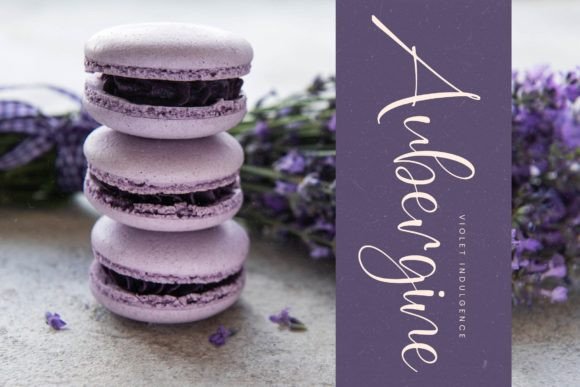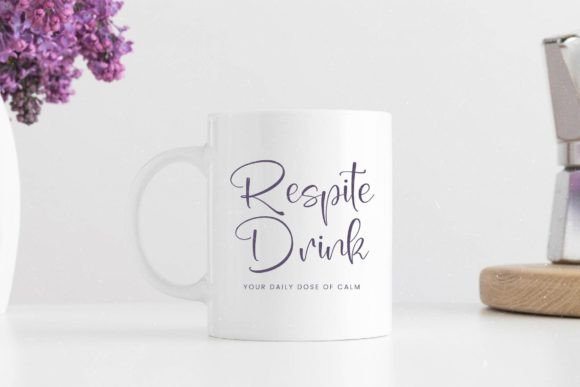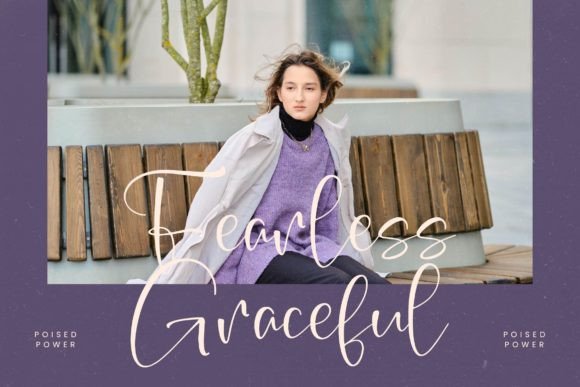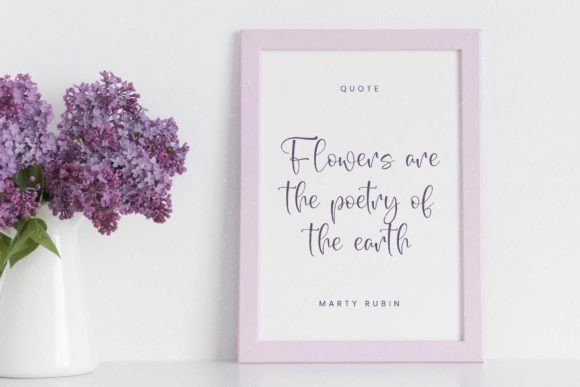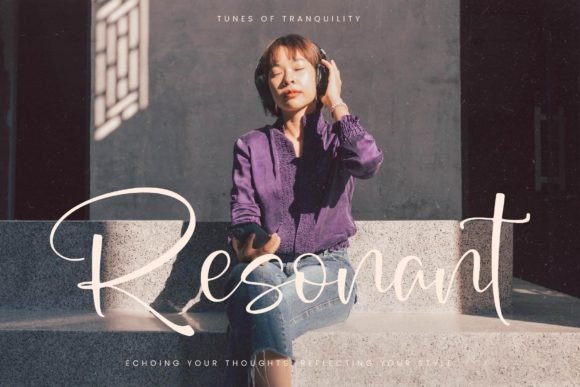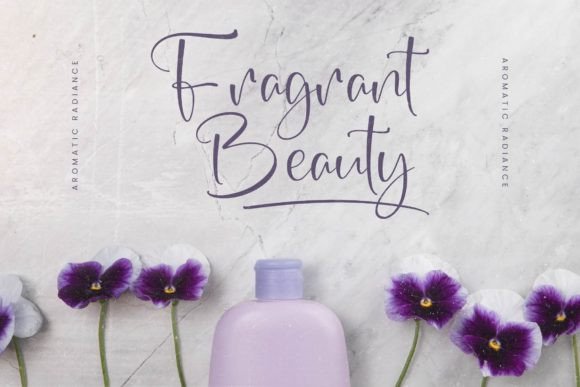
Introduction to Roseteria Culture Font
Roseteria Culture is a modern and charming handwritten font that exudes elegance and personality.
Its graceful, flowing strokes and sophisticated character make it perfect for upscale invitations, personal branding, and chic editorial designs Elevate your projects with the refined allure and warmth of this font.
Key Features of Roseteria Culture Font
Why Choose Roseteria Culture Font?
Roseteria Culture Font offers exceptional quality and versatility, making it a valuable addition to your design toolkit. Whether you’re creating for personal projects or commercial use, Roseteria Culture Font delivers professional results.